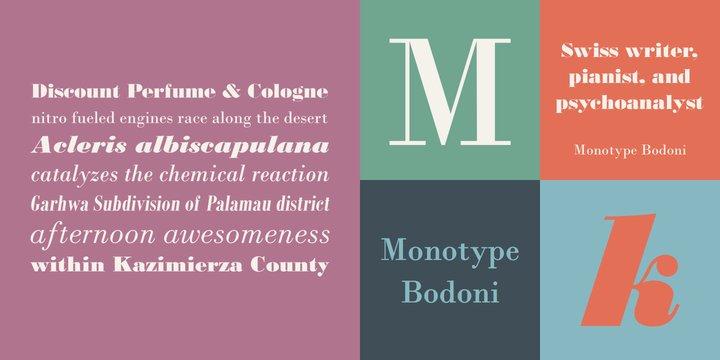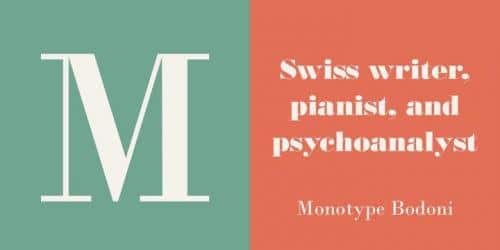
Bodoni expresses the beginning of the Industrial Revolution; its serifs are flat, think and unbracketed, while the stress is always on the mathematically vertical strokes. Bodoni believed in plenty of white space and therefore descenders are long. The M is rather narrow; in the Q the tail at first descends vertically and the R has a curled tail. The italic, like most continental modern faces, has roman serifs.
Monotype Bodoni provides a clear-cut effect due to its simplicity. It reproduces well, particularly in sizes over 12pt. This font is slightly darker than Bauer Bodoni. The contrast makes Monotype Bodoni appear more condensed.